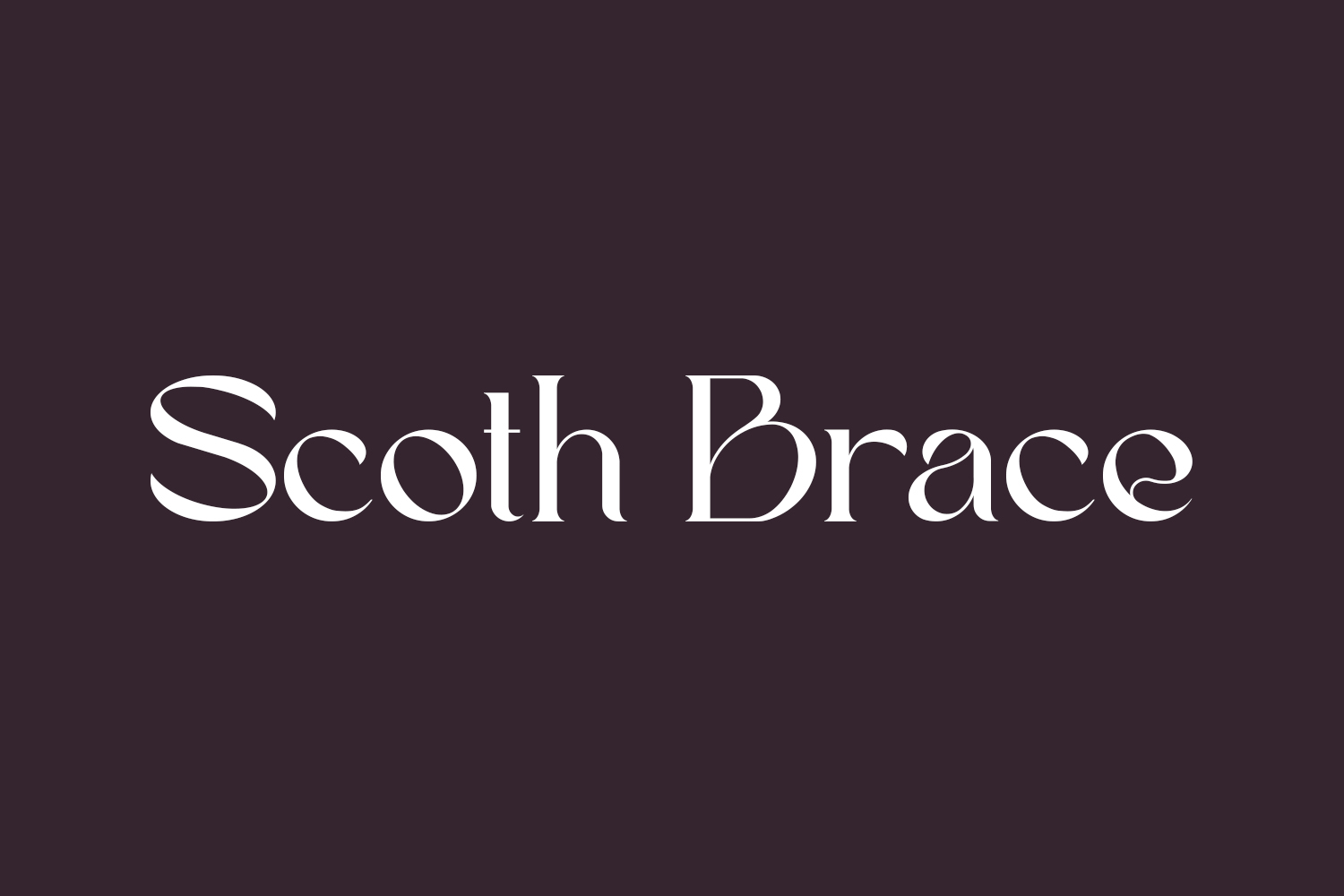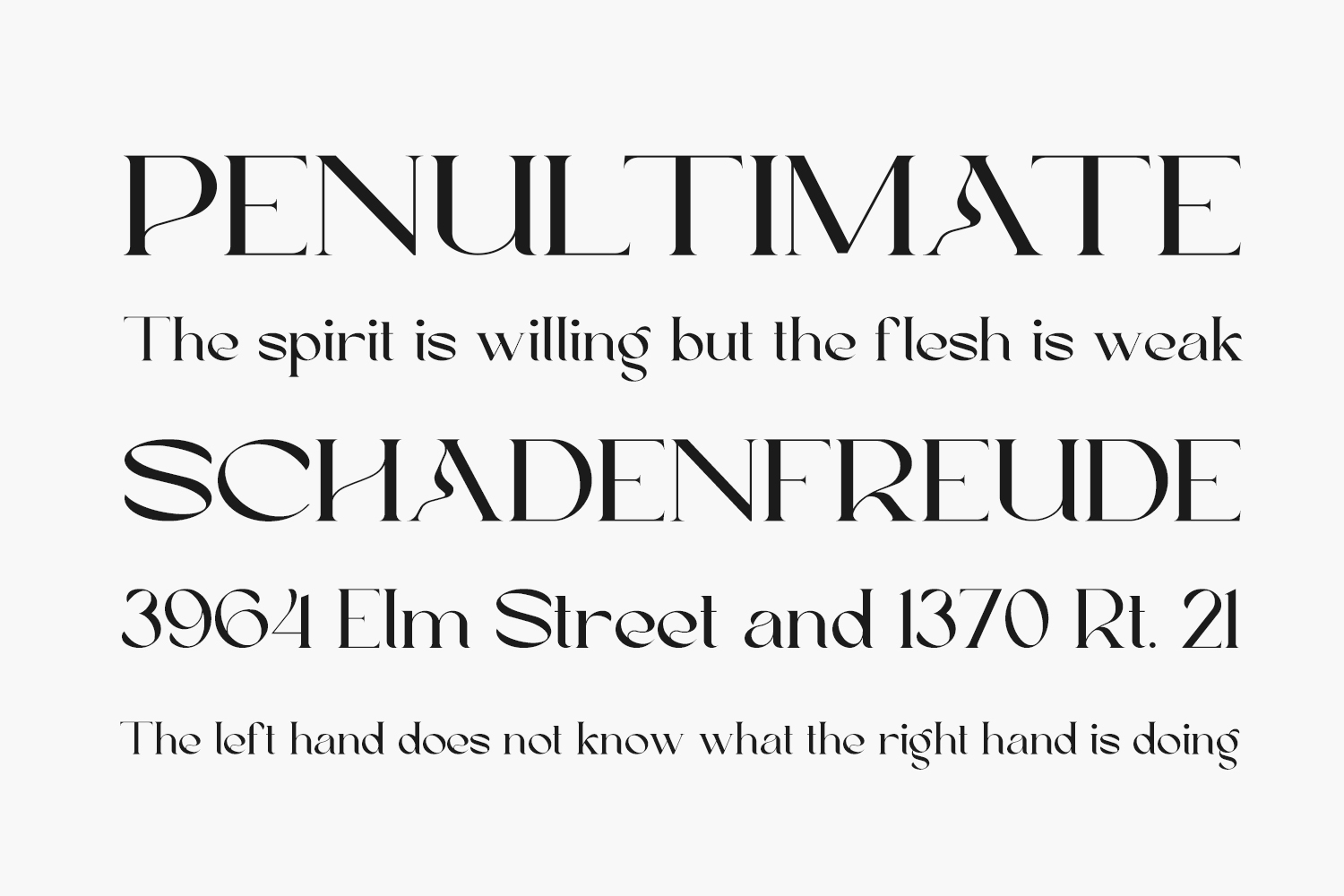
Discover the allure of Scoth Brace Free Font, an exquisite and contemporary serif font. Embrace its captivating style to craft stunning logos, headlines, branding materials, wedding invitations, exquisite stationery art, engaging social media posts, and beyond. Download the font for free if you need it for personal use or purchase the full version for commercial use.
Designed by Heinzel Std